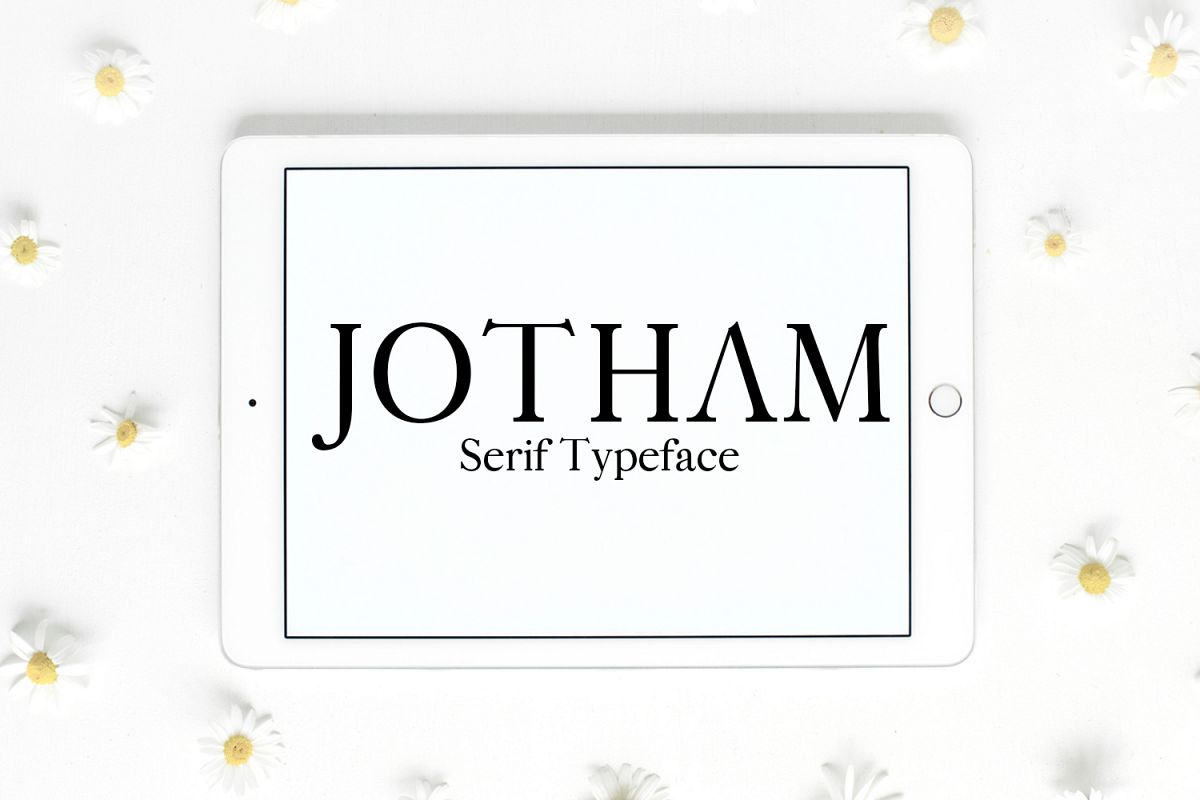
Jotham Serif Typeface
Jotham Serif Typeface is a clean and beautiful serif font family, which contains 4 weights and It features unique and modern serif look and feel. Perfect for gorgeous logos, titles, web layouts and branding.It looks gorgeous in all caps with a wide-set spacing if you want to try a classy look, or beautiful on its own in capital and lowercase letters for something completely timeless.Included Features:
• Font Weight: Regular, Light, Medium, and Bold
• Extras: Uppercase Multilingual Letters, Lowercase Multilingual Letters, Numbers & Punctuation + Alternatives.